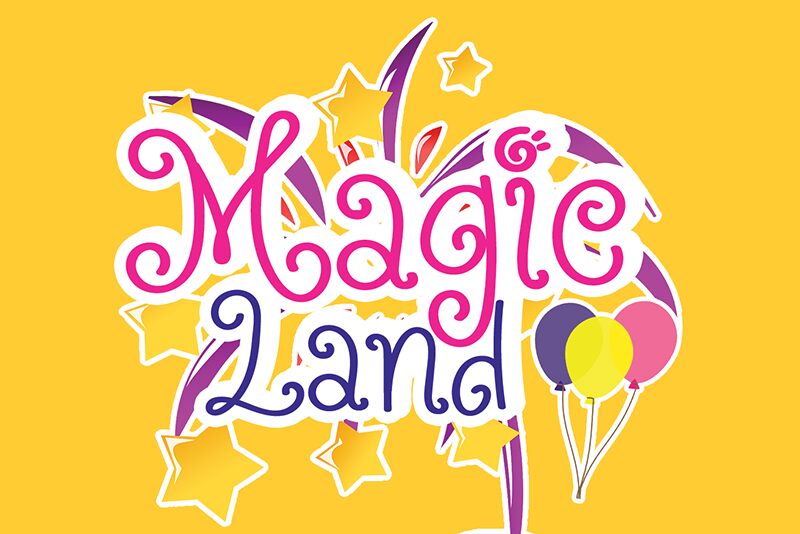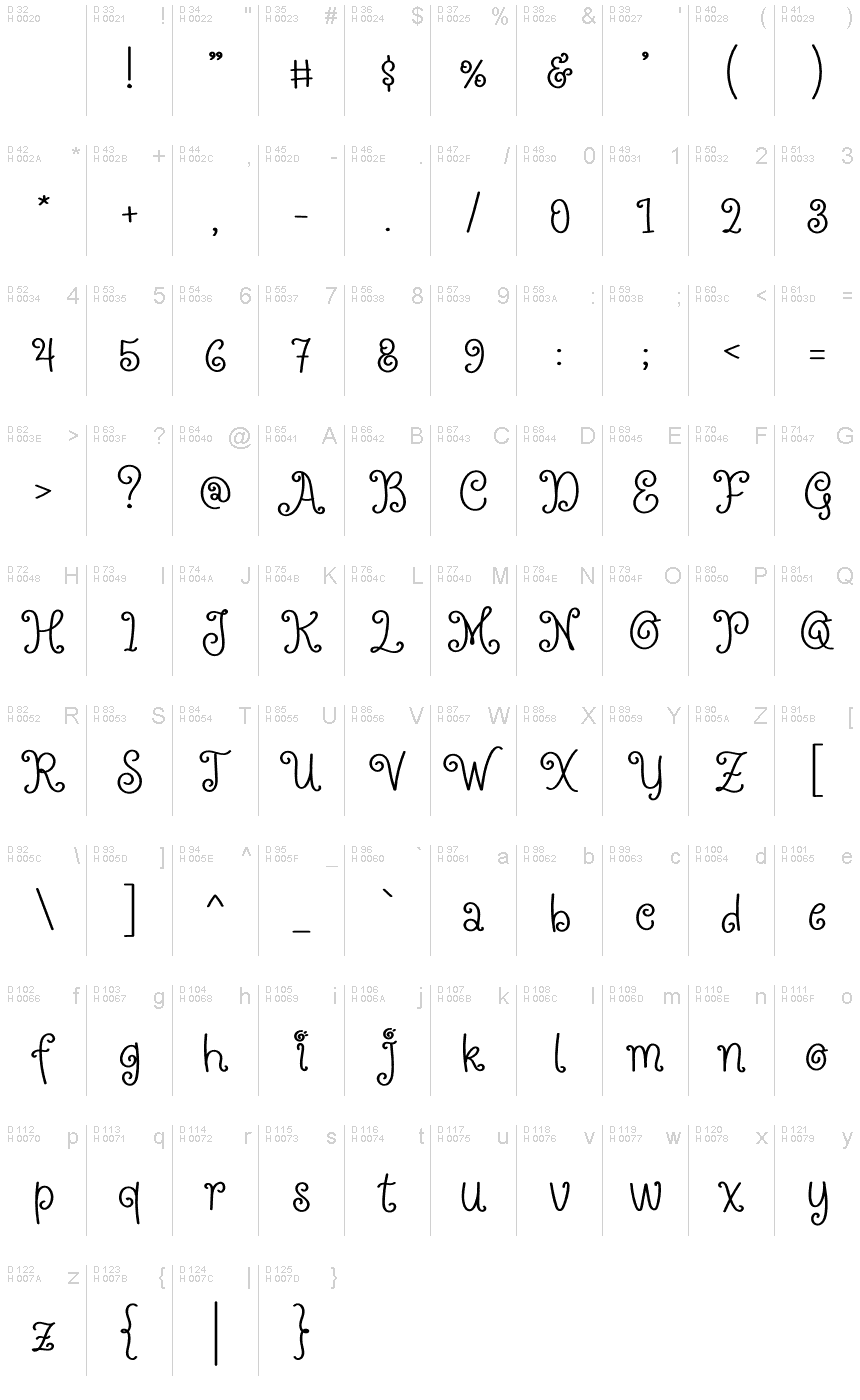
Magic Land
Introducing Magic Land, a light and curly display font designed by Luluk Surotul that is perfect for projects needing an eye-catching style. Use it to add a whimsical charm to logos, posters, and other creative endeavors.